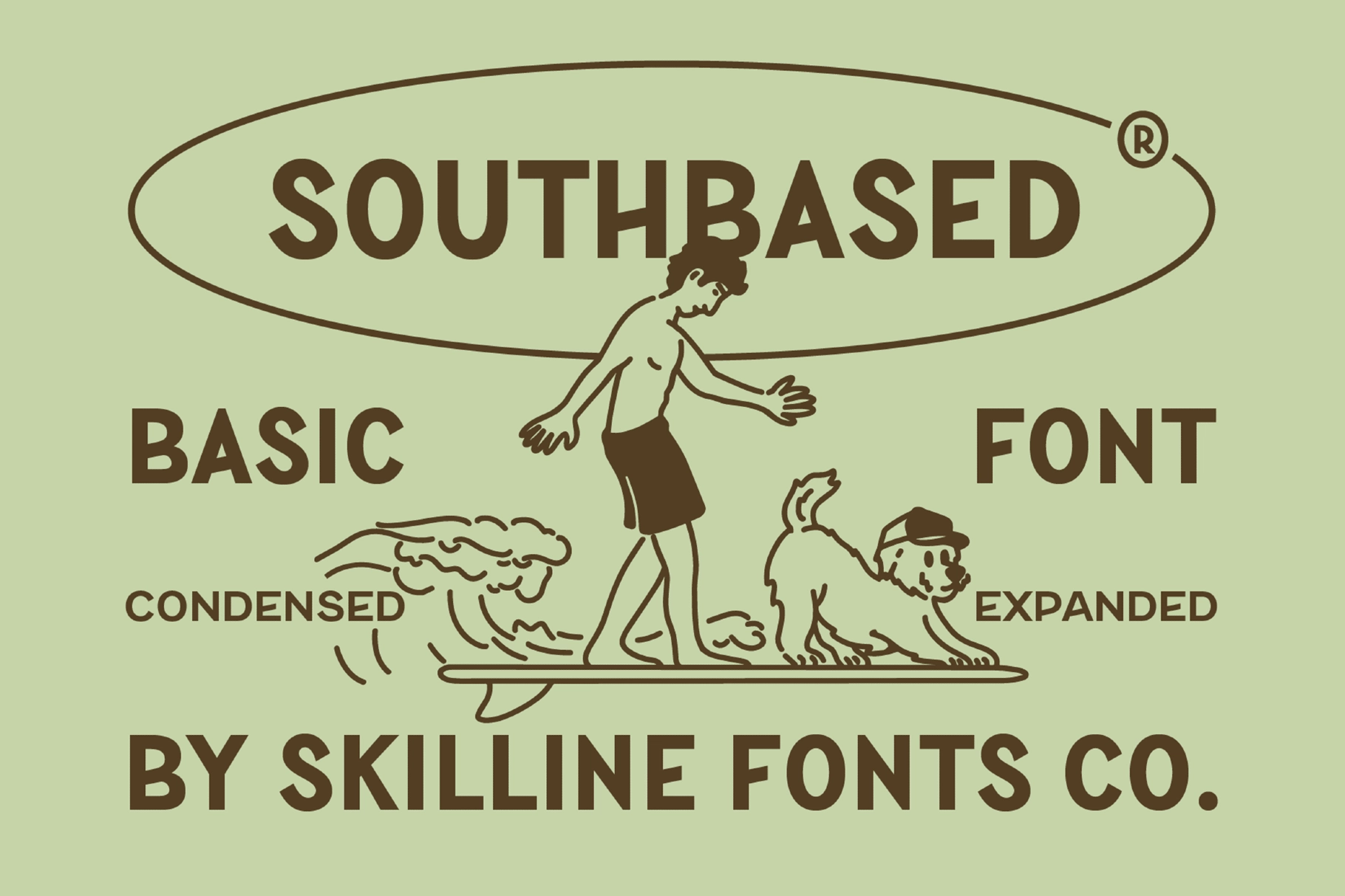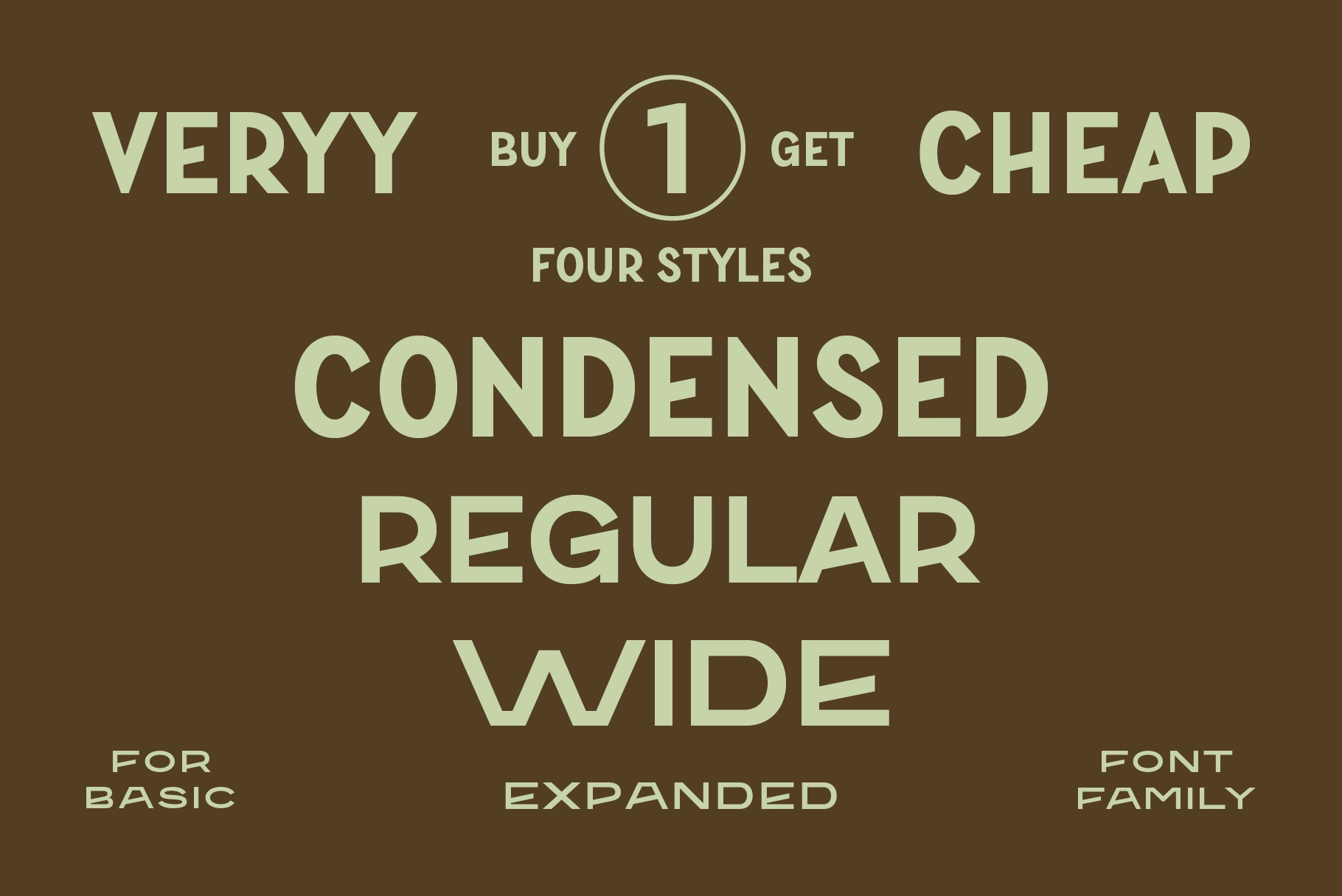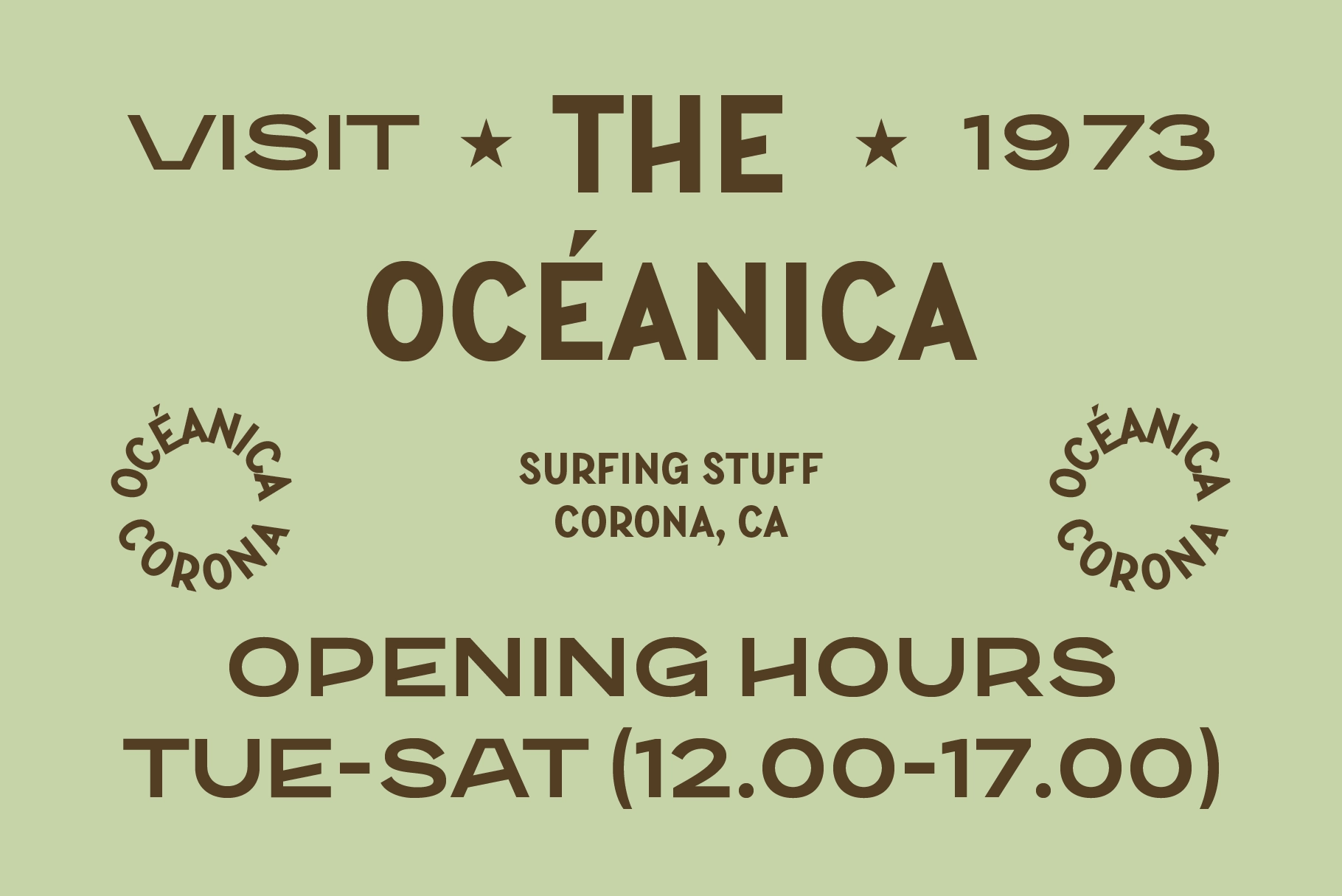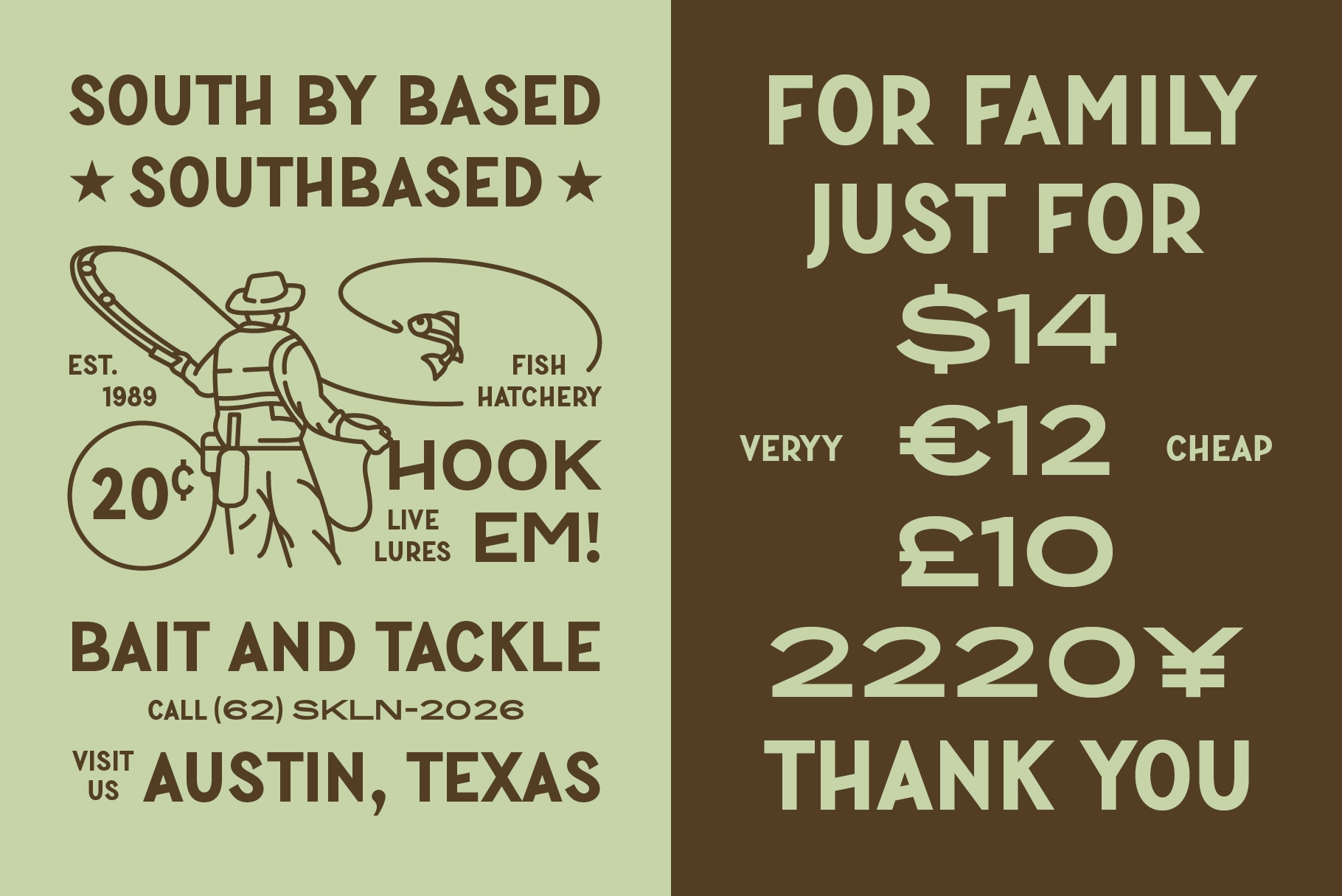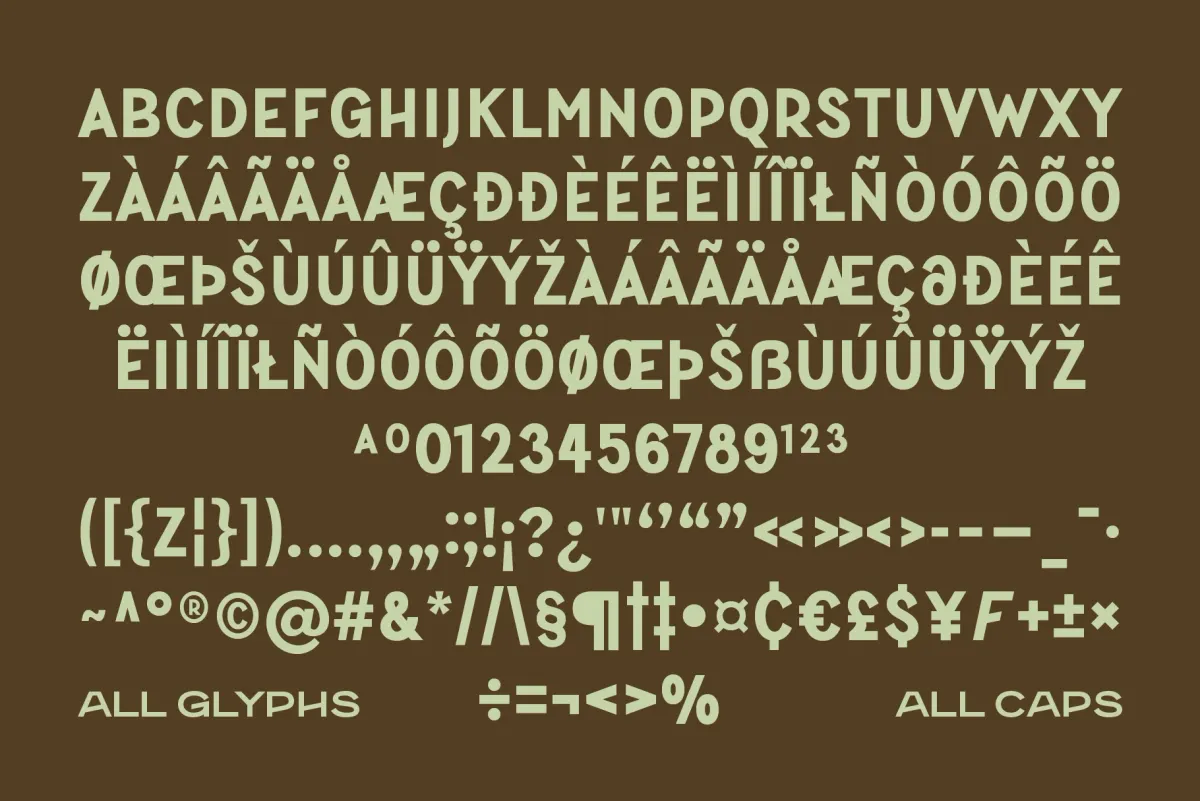
Southbased - Geometric Sans Serif Font Family
Southbased – Geometric Sans Serif Font Family is a clean retro-inspired typeface influenced by vintage surf culture, classic signage, and timeless editorial design. Its geometric structure and subtle nostalgic feel create a bold yet versatile look, perfect for modern branding with a vintage edge.
With four width styles—Condensed, Regular, Wide, and Expanded—this font offers flexible typographic control for a wide range of uses. The all-caps design ensures strong visual impact and readability, making it ideal for logos, posters, apparel graphics, packaging, and contemporary retro projects.
• 4 Styles: Condensed, Regular, Wide, Expanded
• All Caps Typeface Construction
• Numbers & Extended Punctuation